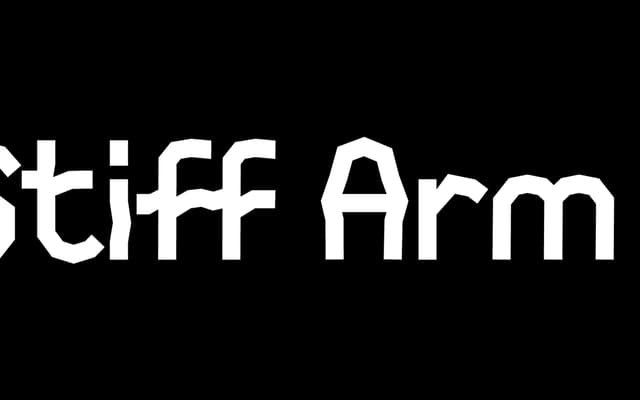
Stiff Arm
A monoline display face that replaces conventional curves with sharp, wavy edges to create an energetic, offbeat character.
The letterforms use angular, wave-like constructions in place of true curves, giving the face an irregular, hand-drawn quality that sits somewhere between geometric and organic. It suits headlines and short-form display work where a distinctive, unconventional silhouette is needed. The single weight and monoline stroke keep things simple whilst the wavy forms carry the visual interest.
A monoline display face with angular, wave-like letterforms that mimic curves through sharp edges rather than true rounds, placing it firmly in the display category.